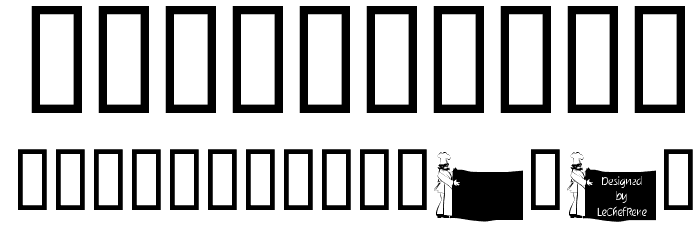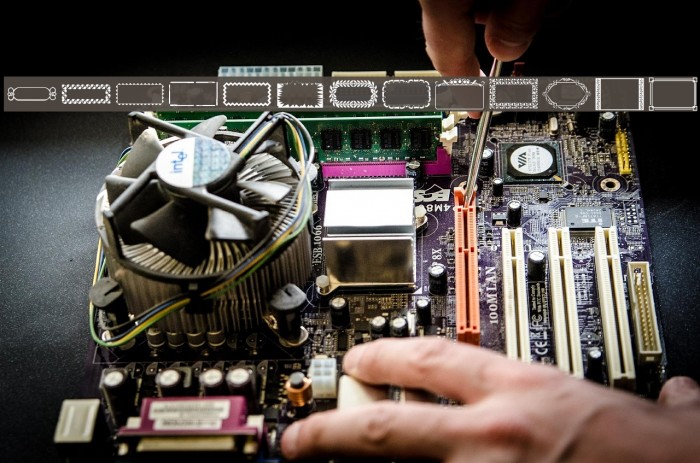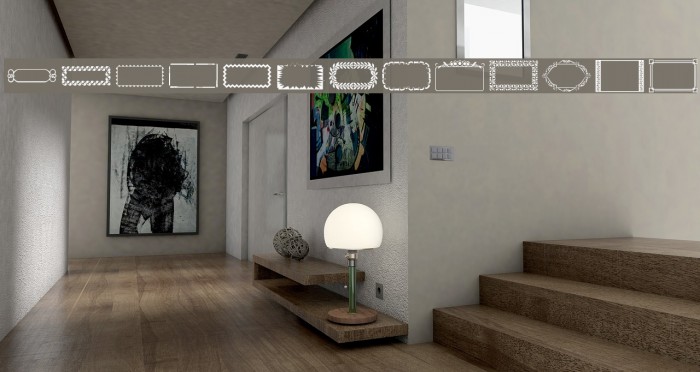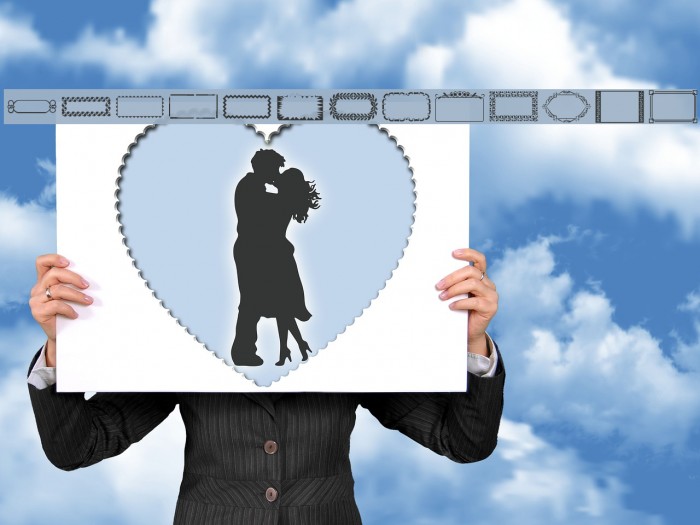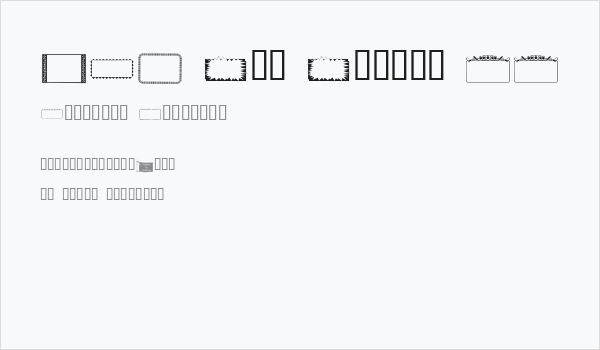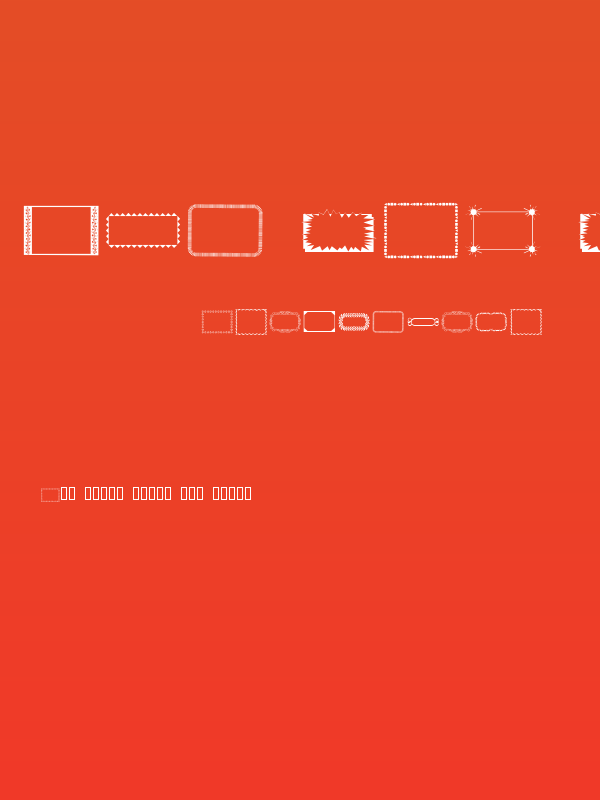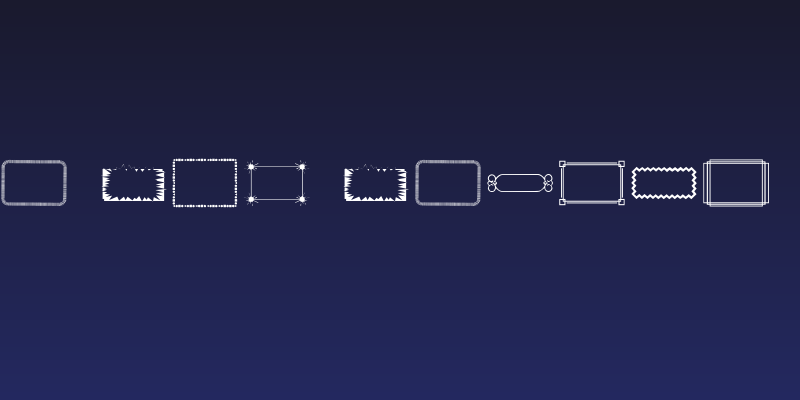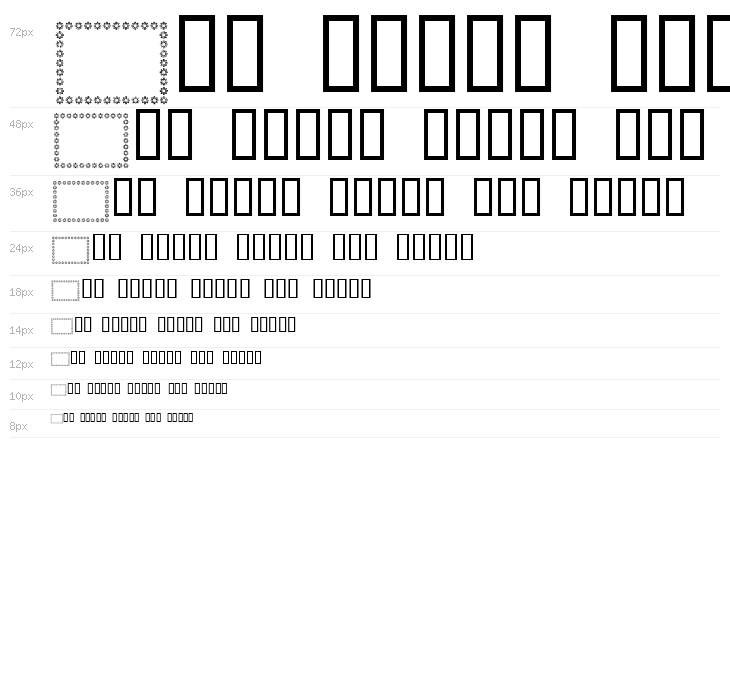
LCR Fun Frames II Font
LCR Fun Frames II Description
A decorative display font composed entirely of various outlined rectangular and ornamental frame shapes, with each character represented by a unique border design. Some frames feature playful or whimsical elements, such as zigzags, dots, or cartoon figures holding signs.
| Overall Style | Decorative, Playful, Whimsical |
| Use Case | Borders, Frames, Decorative accents |
| Proposed Projects | Scrapbooking, invitations, certificates, digital stickers, classroom materials, creative borders for posters or worksheets. |